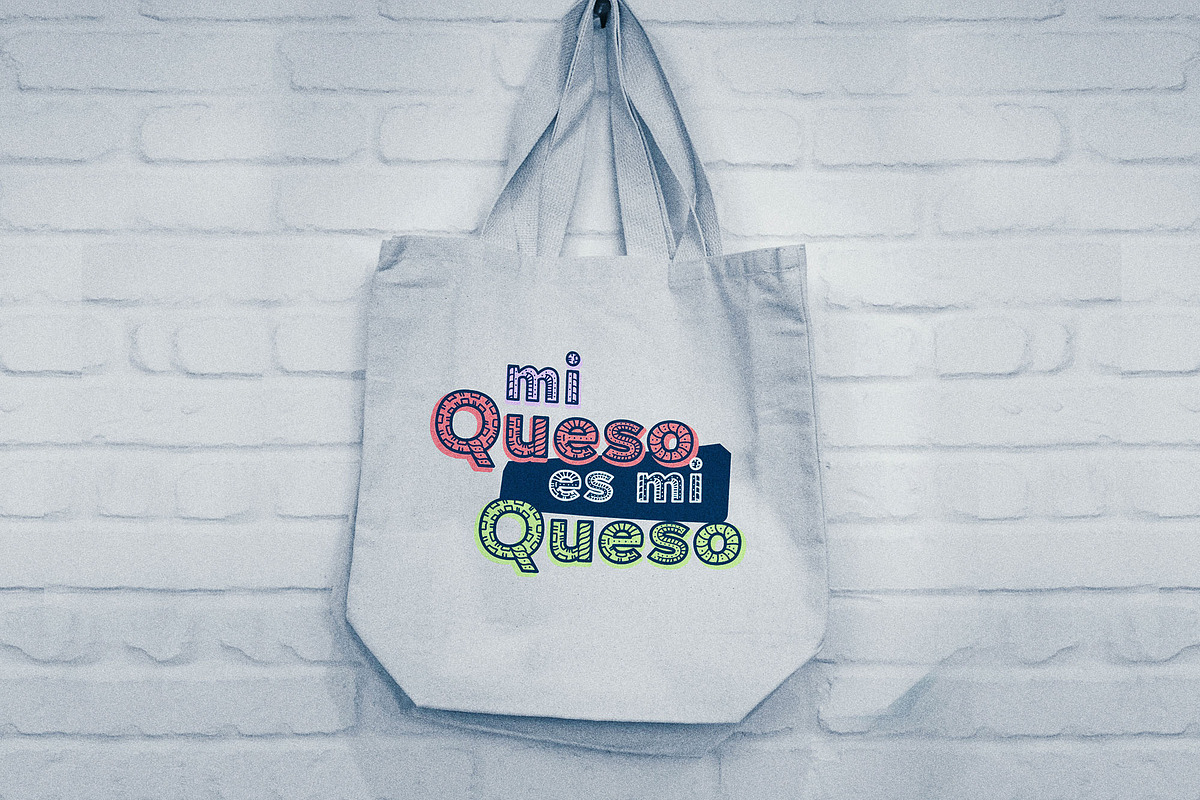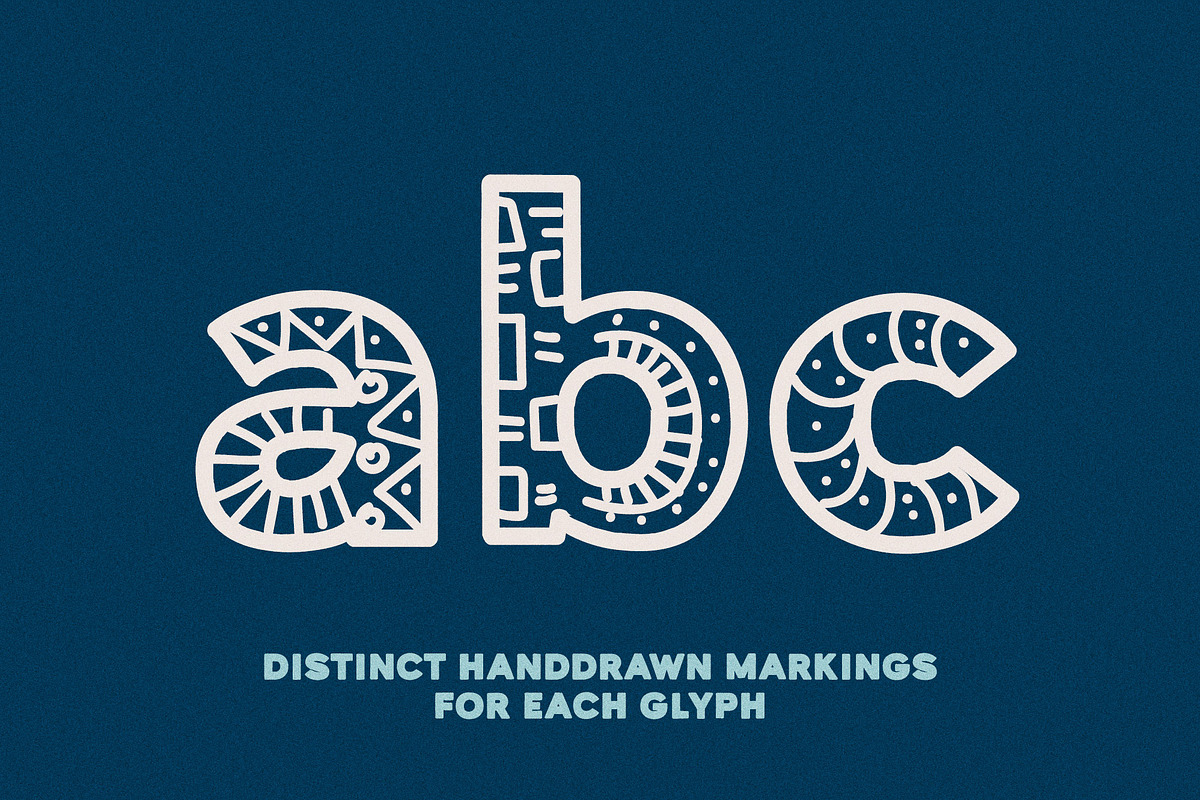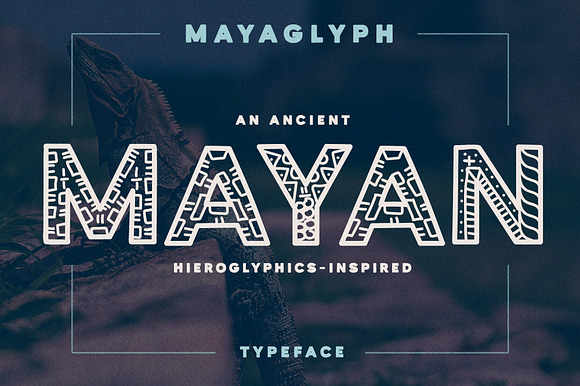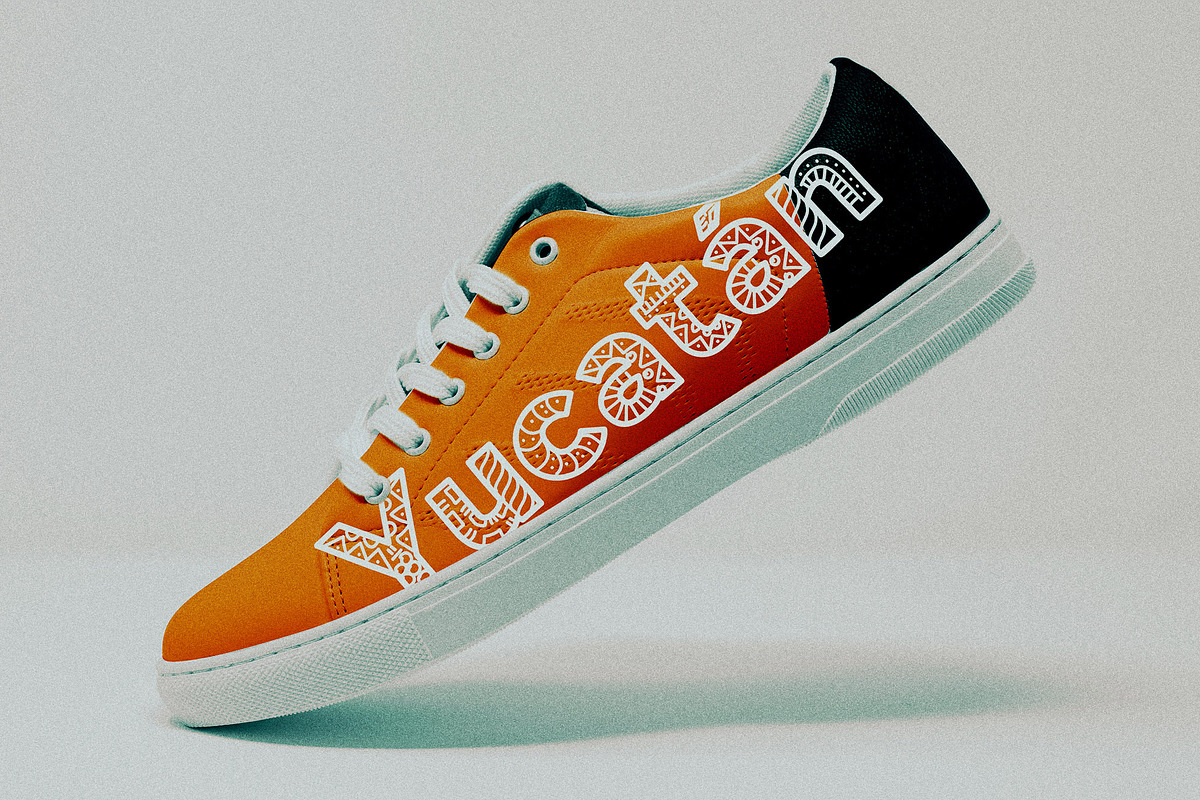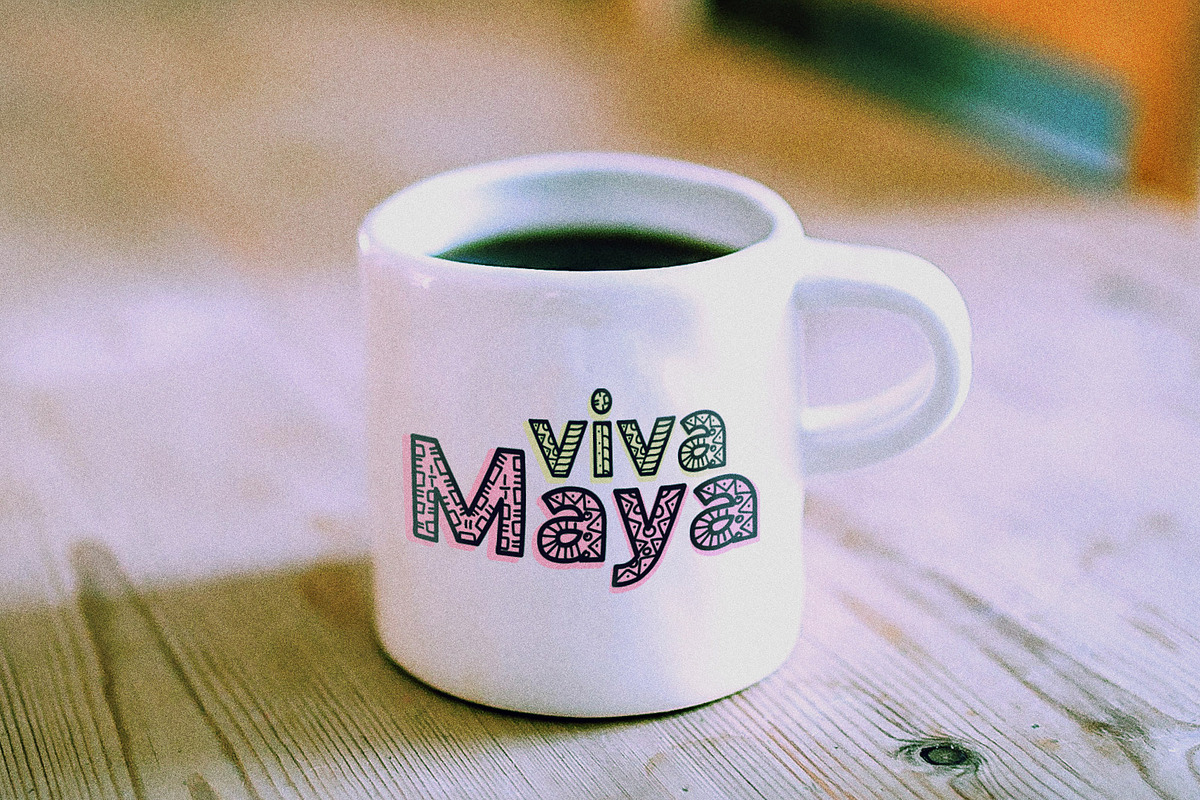
Mayaglyph - Mexico/Aztec Font
Introducing Mayaglyph, a modern typeface inspired by the hieroglyphics left behind by the Ancient Mayan civilization. Every character in Mayaglyph is manually created with hand-drawn markings for consistency and balanced visuals, including diacritic marks, symbols, and more!
Each character in Mayaglyph is distinctly imperfect in its own way, just as if it was taken right off an ancient stone. Also available is a 'solid' background version, which is ideal for creating beautiful multi-layer designs.